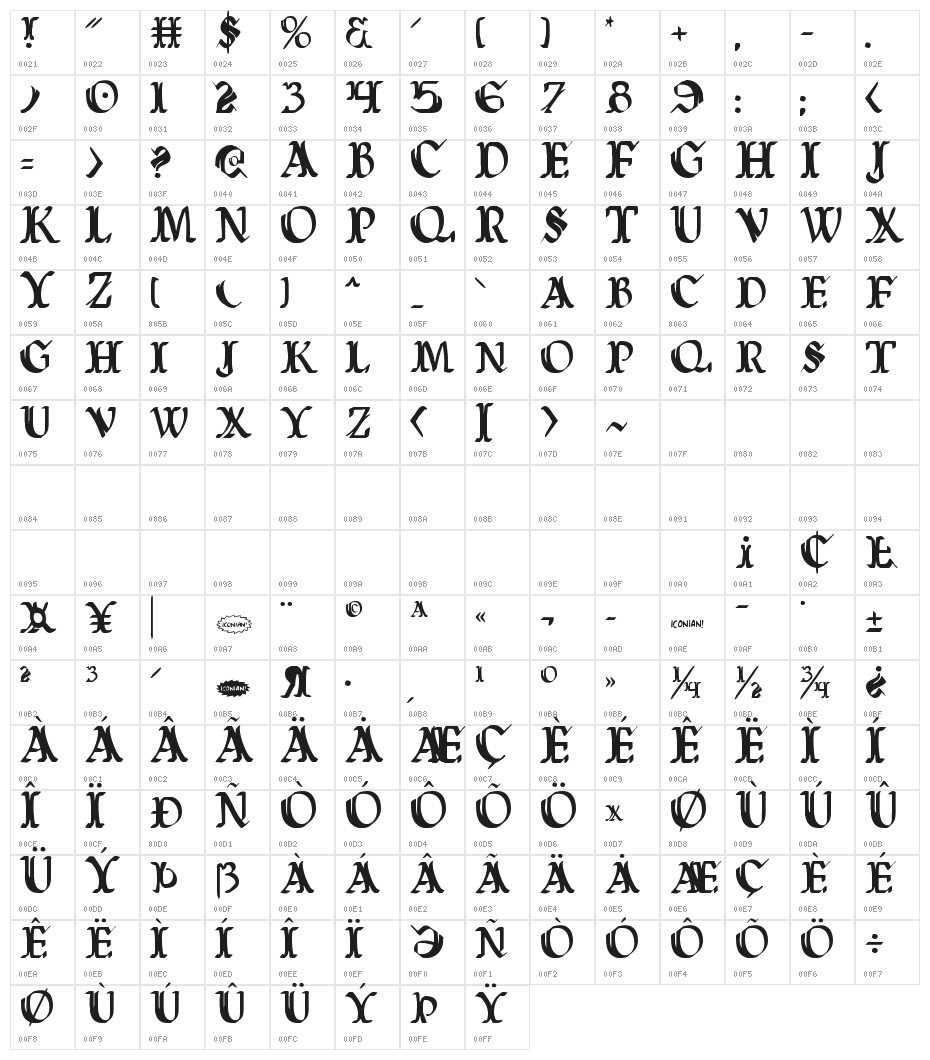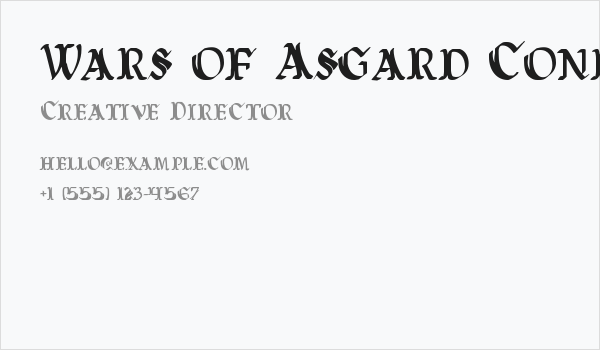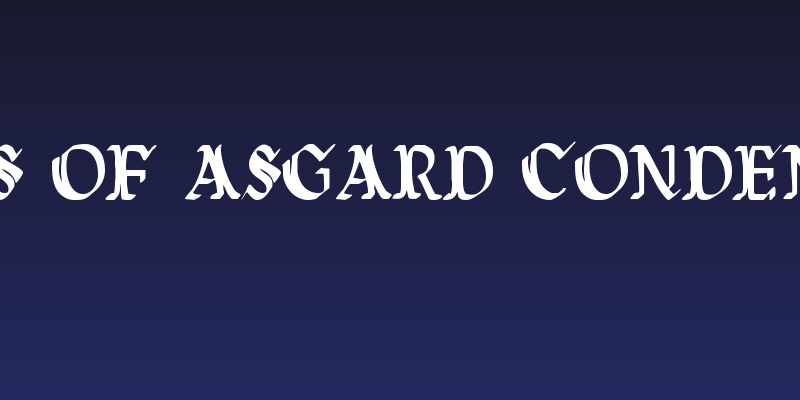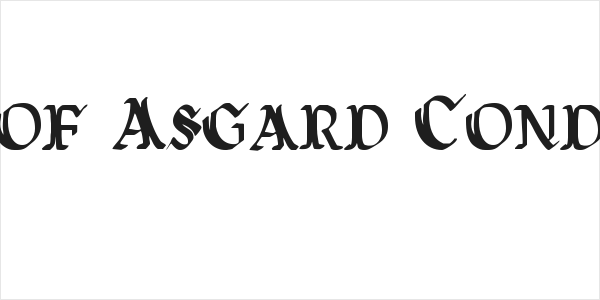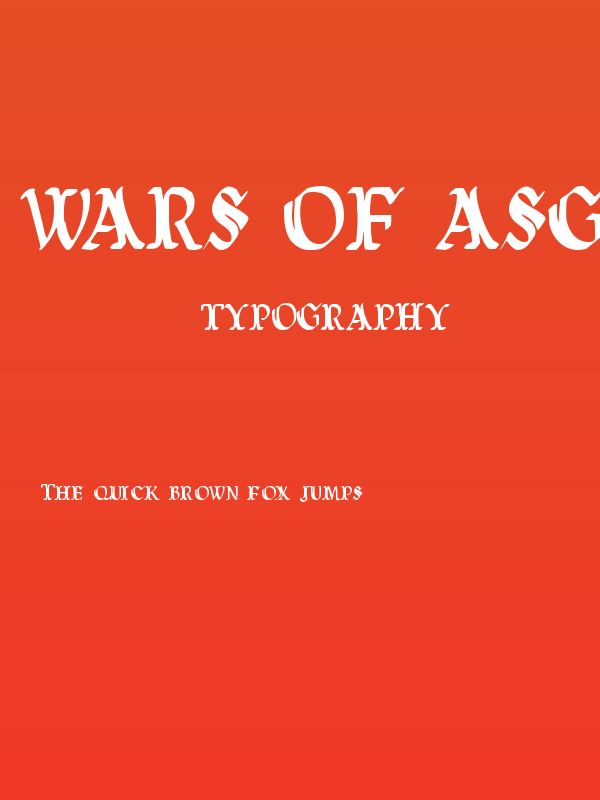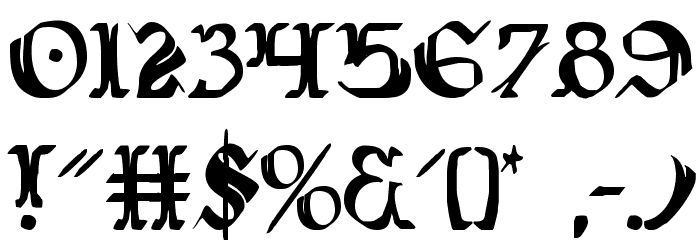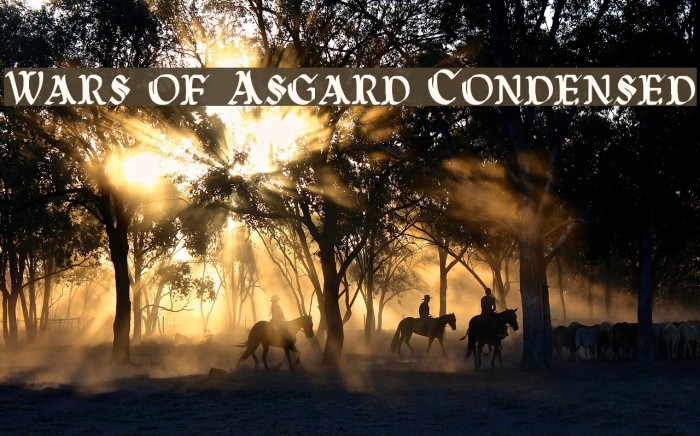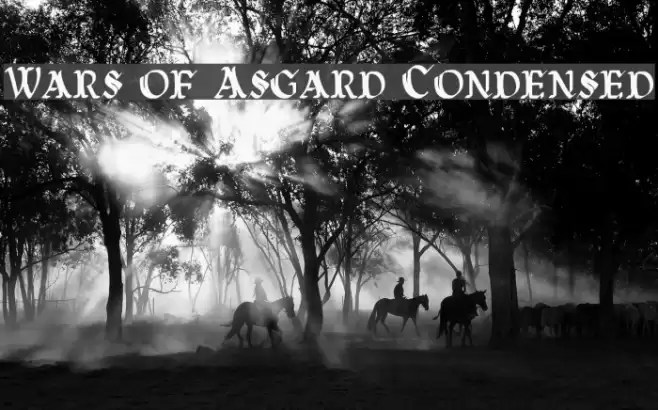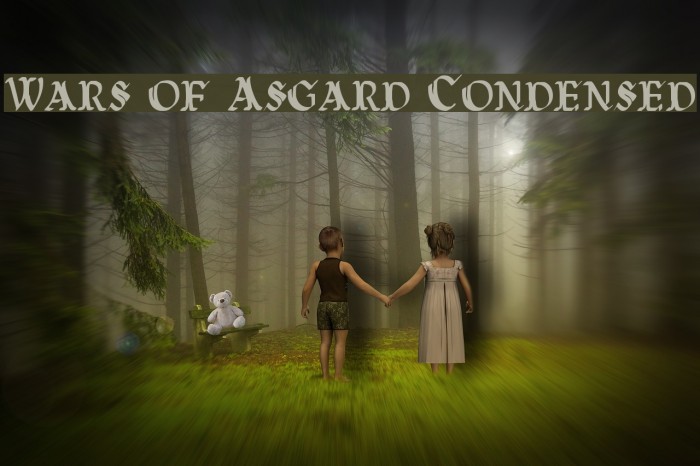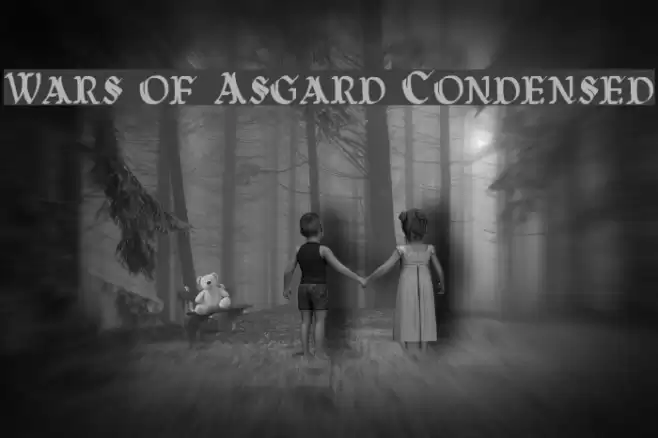
Wars of Asgard Condensed Font
Wars of Asgard Condensed Description
This font features a bold and dramatic style with a distinct medieval flair. The characters are designed with sharp edges and intricate details, reminiscent of ancient runes or Gothic script. The uppercase and lowercase letters maintain a consistent theme, with exaggerated serifs and a condensed form that adds to its striking appearance. The numbers and special characters follow the same ornate design, making them suitable for thematic projects. The overall look is both powerful and elegant, capturing a sense of historical grandeur.
| Proposed Projects | Ideal for fantasy-themed designs, historical event posters, video game titles, or any project requiring a dramatic and ancient aesthetic. |